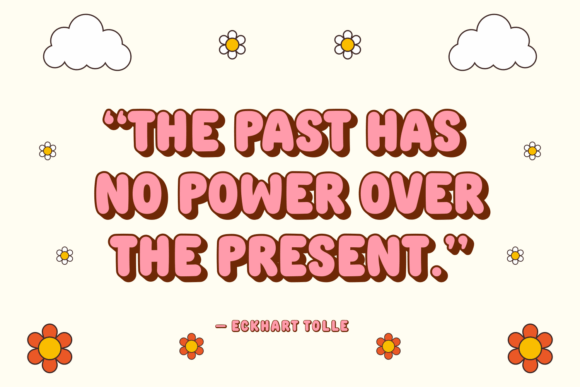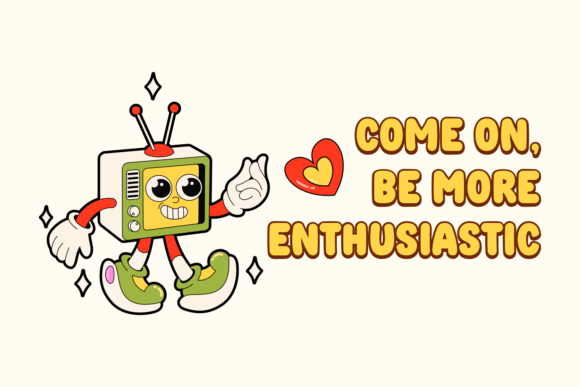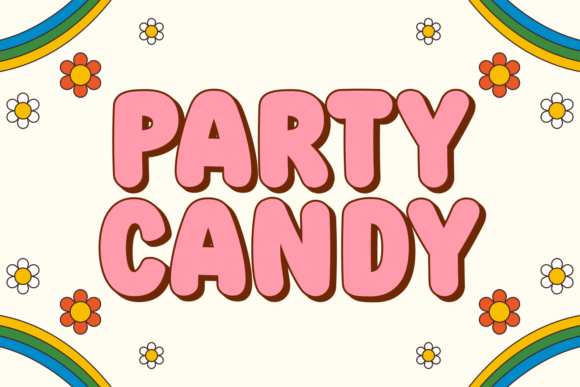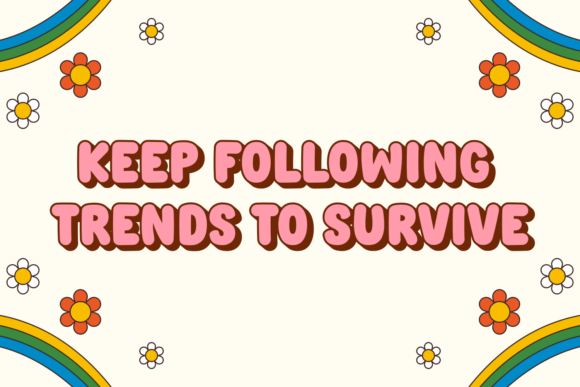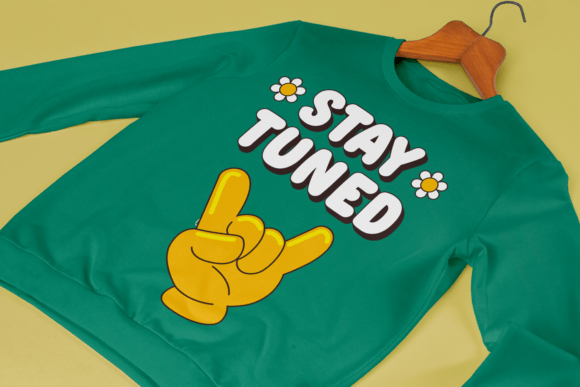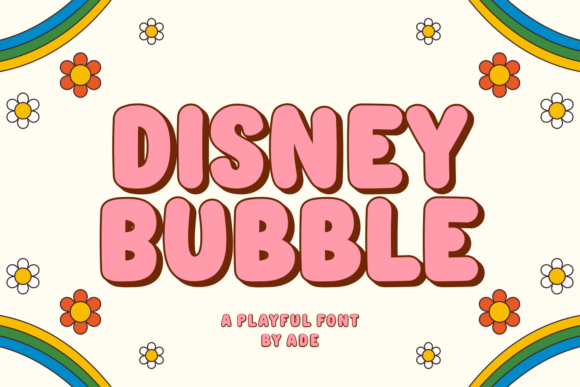
Introducing Disney Bubble Font: A Fun and Cheerful Typeface for Your Designs
Are you looking for a font that can add a touch of playfulness and warmth to your digital designs? Look no further than the Disney Bubble Font, also known as Disney Bubble Display Font. This delightful typeface is perfect for designers and crafters who want to create engaging and visually appealing content that conveys a cheerful and affectionate message.
What is Disney Bubble Font?
Disney Bubble Font is a fun and cheerful typeface characterized by its rounded corners, which give it a friendly and fun feel. The font’s design is inspired by the classic Disney style, with a modern twist that makes it perfect for use in digital designs. The rounded corners and smooth lines of the font create a sense of approachability and warmth, making it ideal for use on social media, invitations, and other digital designs.
Key Features of Disney Bubble Font
- Rounded Corners: The font’s rounded corners give it a friendly and fun feel, making it perfect for designs that require a playful touch.
- Cheerful and Affectionate: The font is designed to convey a cheerful and affectionate message, making it ideal for use in designs that require a warm and inviting tone.
- Expressive and Colorful: The font’s expressive and colorful letter style adds playfulness and warmth to designs, creating a unique and interesting impression.
- Digital Design Friendly: The font is optimized for use in digital designs, making it perfect for use on social media, invitations, and other digital platforms.
Uses of Disney Bubble Font
Disney Bubble Font is a versatile typeface that can be used in a variety of design projects, including:
- Social Media Graphics: Use the font to create engaging and visually appealing social media graphics that convey a cheerful and affectionate message.
- Invitations: The font is perfect for use in invitations, such as birthday party invitations, baby shower invitations, and other celebratory events.
- Digital Art: Use the font to add a playful touch to your digital art projects, such as illustrations, comics, and cartoons.
- Crafting Projects: The font is also perfect for use in crafting projects, such as scrapbooking, card making, and other paper crafts.
Benefits of Using Disney Bubble Font
Using Disney Bubble Font in your designs offers several benefits, including:
- Unique and Playful Look: The font’s unique and playful design helps to create a visually appealing and engaging design that stands out from the crowd.
- Emotional Connection: The font’s cheerful and affectionate style helps to create an emotional connection with the viewer, making it perfect for designs that require a personal touch.
- Versatility: The font is versatile and can be used in a variety of design projects, from social media graphics to crafting projects.
Tips for Using Disney Bubble Font
Here are some tips for using Disney Bubble Font in your designs:
- Use it in Combination with Other Fonts: Use the font in combination with other fonts to create a visually appealing and interesting design.
- Experiment with Colors: Experiment with different colors to find the perfect combination that matches your design’s tone and style.
- Keep it Simple: Keep your design simple and avoid cluttering it with too much text or graphics.
| Author | Ade (7NTypes) |
Disney Bubble Font is a fun and cheerful typeface that is perfect for designers and crafters who want to add a playful touch to their digital designs. With its rounded corners, cheerful and affectionate style, and expressive and colorful letter style, this font is sure to create a unique and interesting impression. Whether you’re designing social media graphics, invitations, or crafting projects, Disney Bubble Font is a great choice for any design project that requires a playful and warm tone.